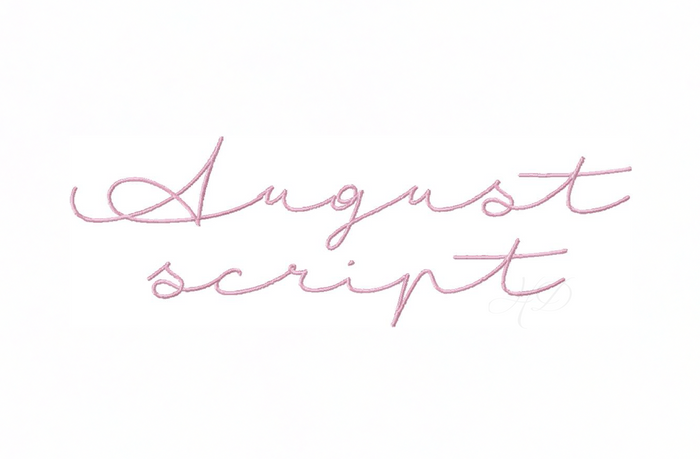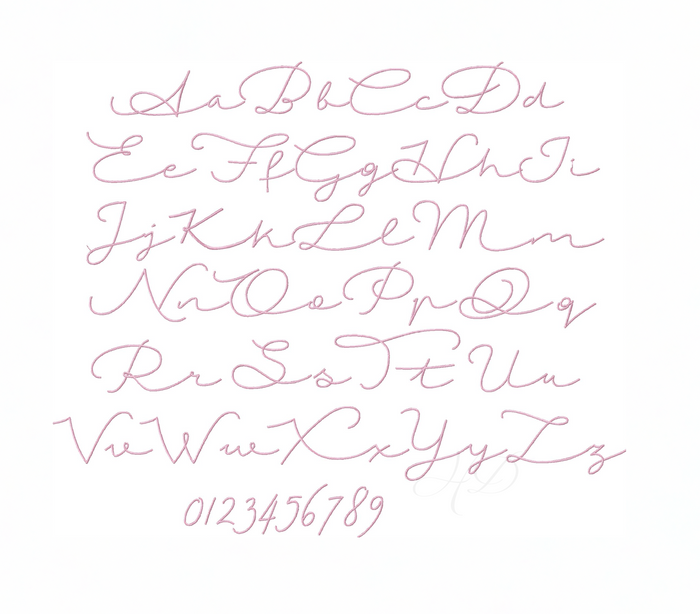
August Script Satin Embroidery Font
Introducing the versatile August Script Satin Embroidery Font, perfect for all your crafting and DIY projects. This stunning single-color fill stitch font includes both uppercase and lowercase letters (A-Z) along with numbers (0-9), allowing for personalized designs on a range of fabric items.
While the sizing is based on uppercase letters, note that lowercase letters are approximately 1/4-1/3 the size of their uppercase counterparts. For larger sizes (2" and 2.5"), be aware that some uppercase letters may exceed a 4x4 hoop's dimensions, though all lowercase letters will fit comfortably.